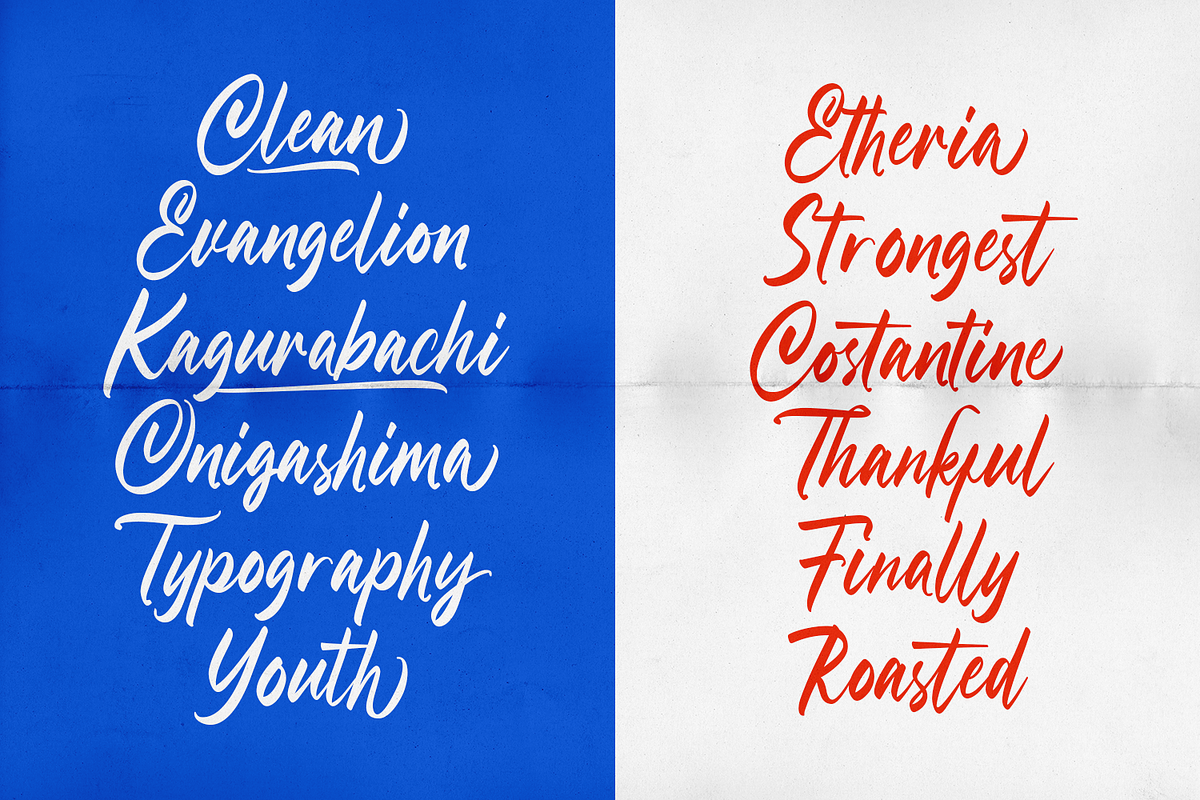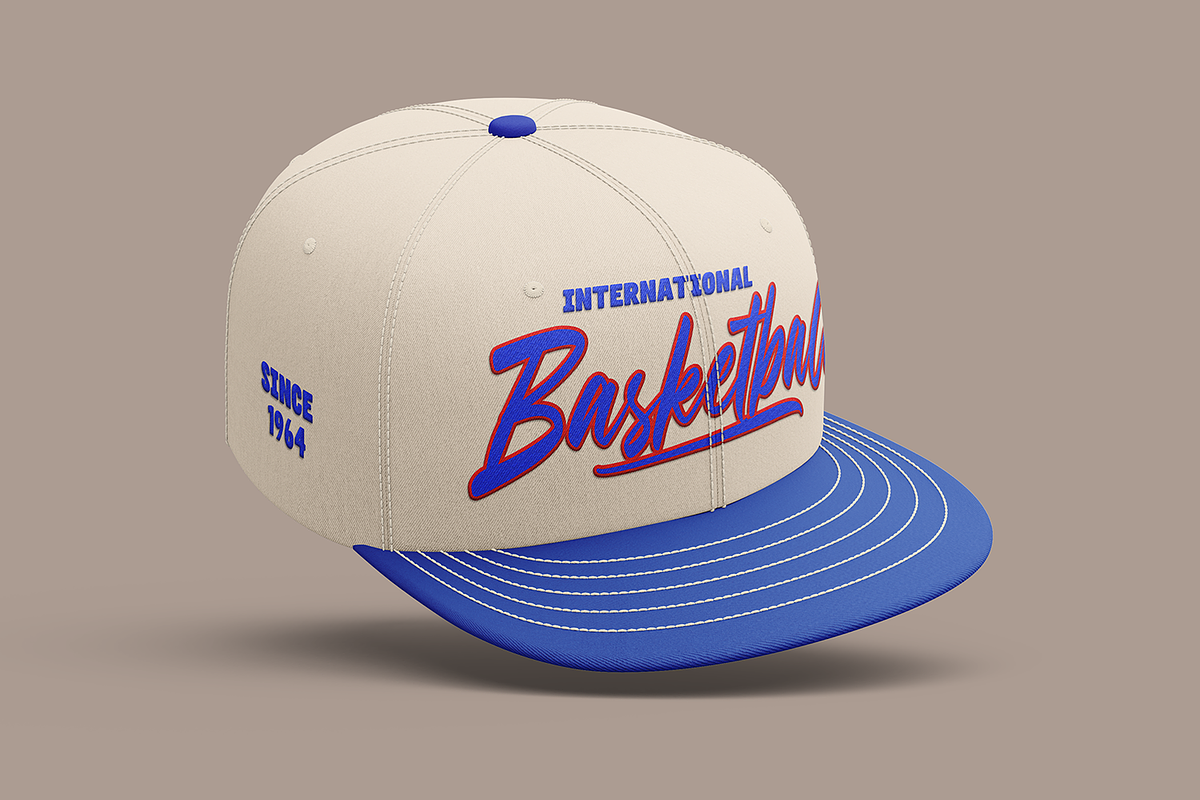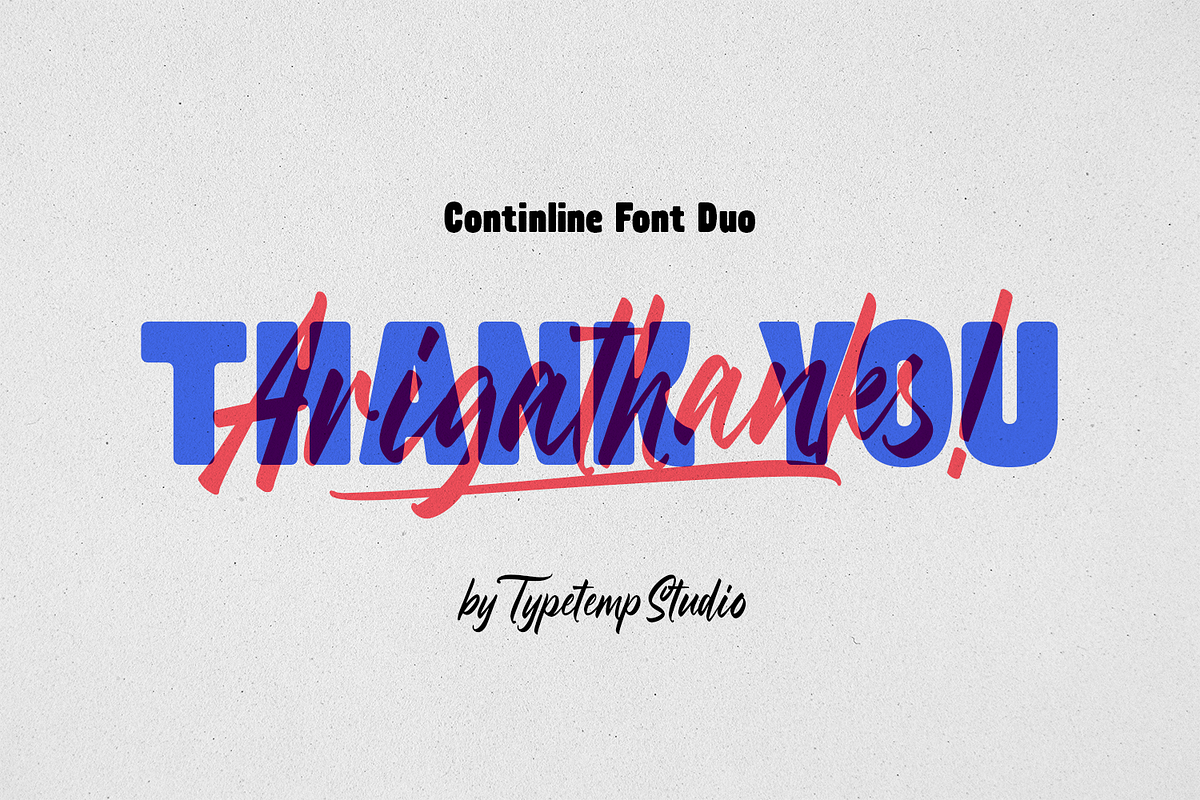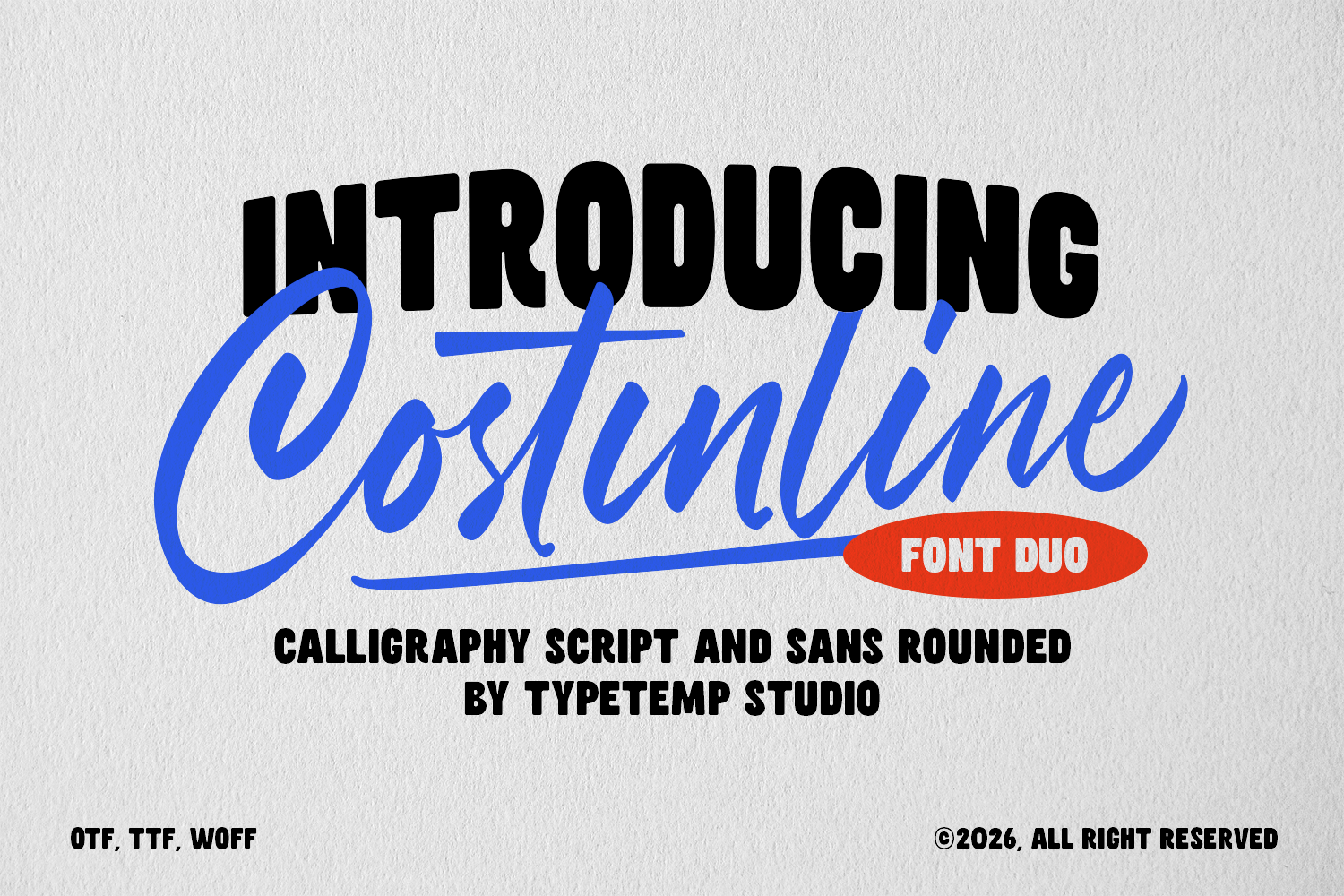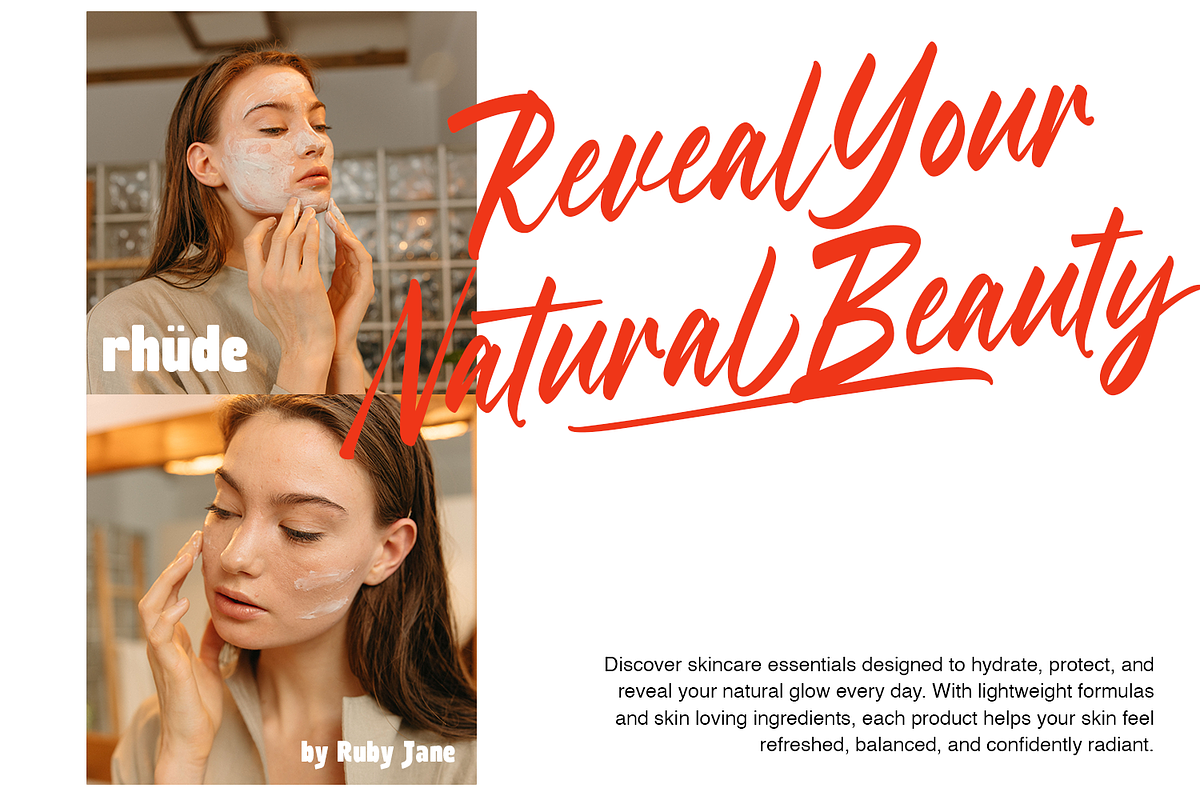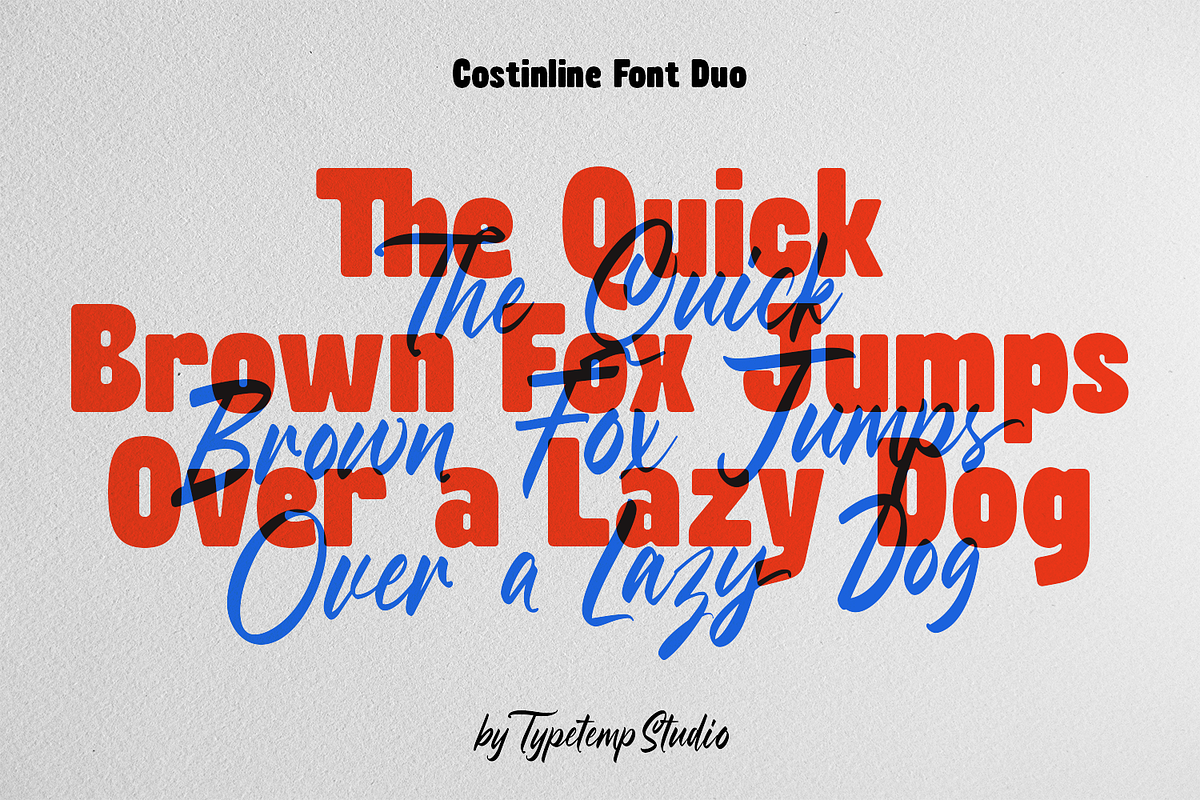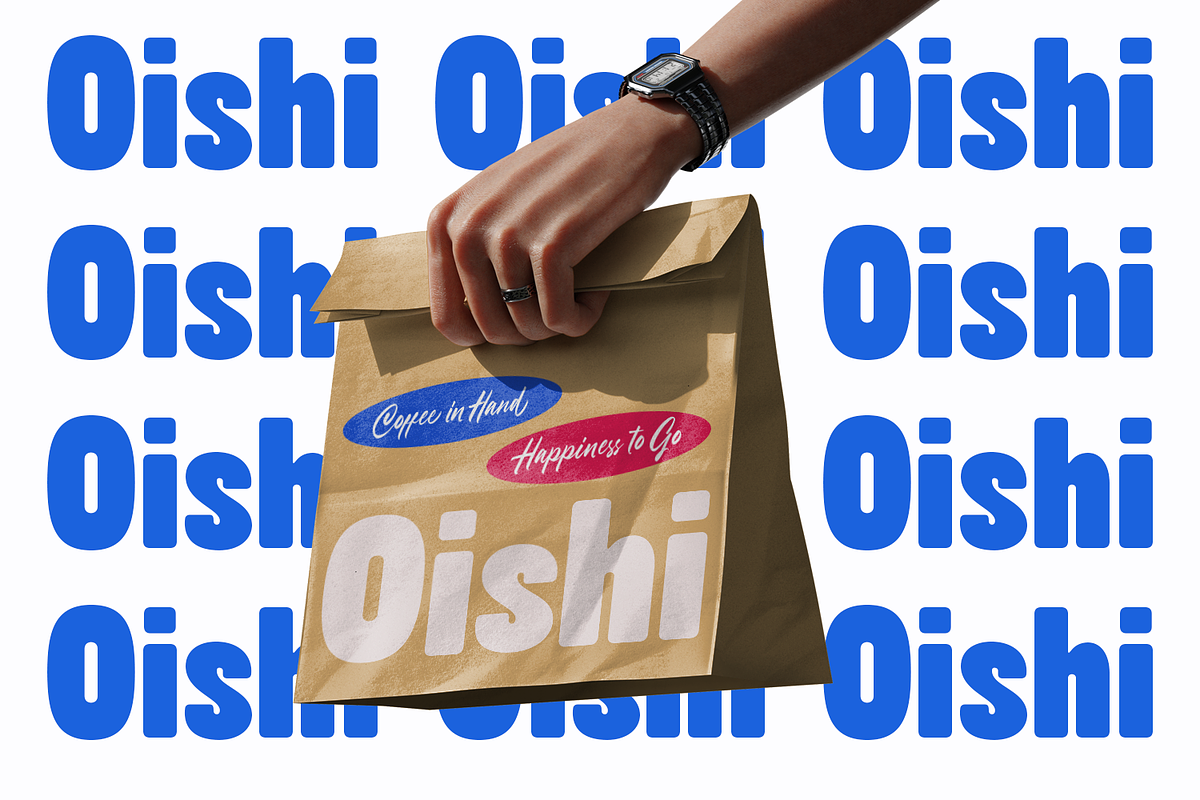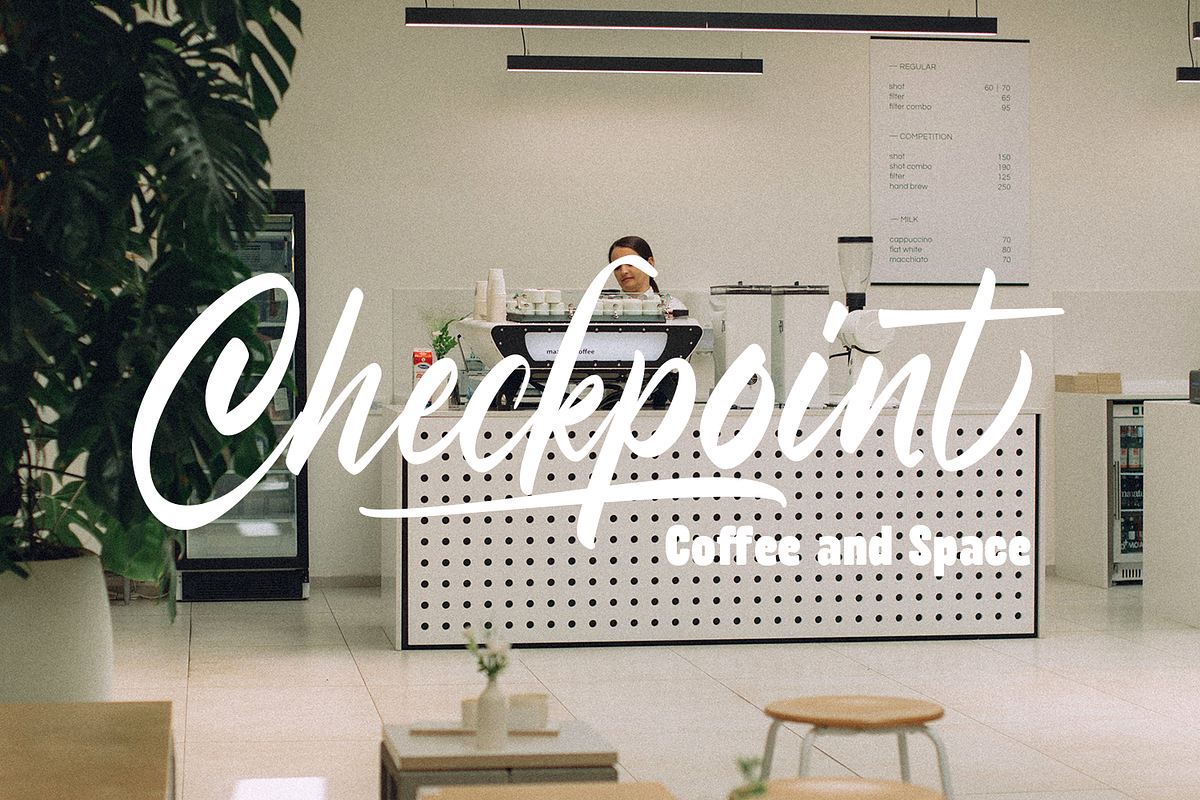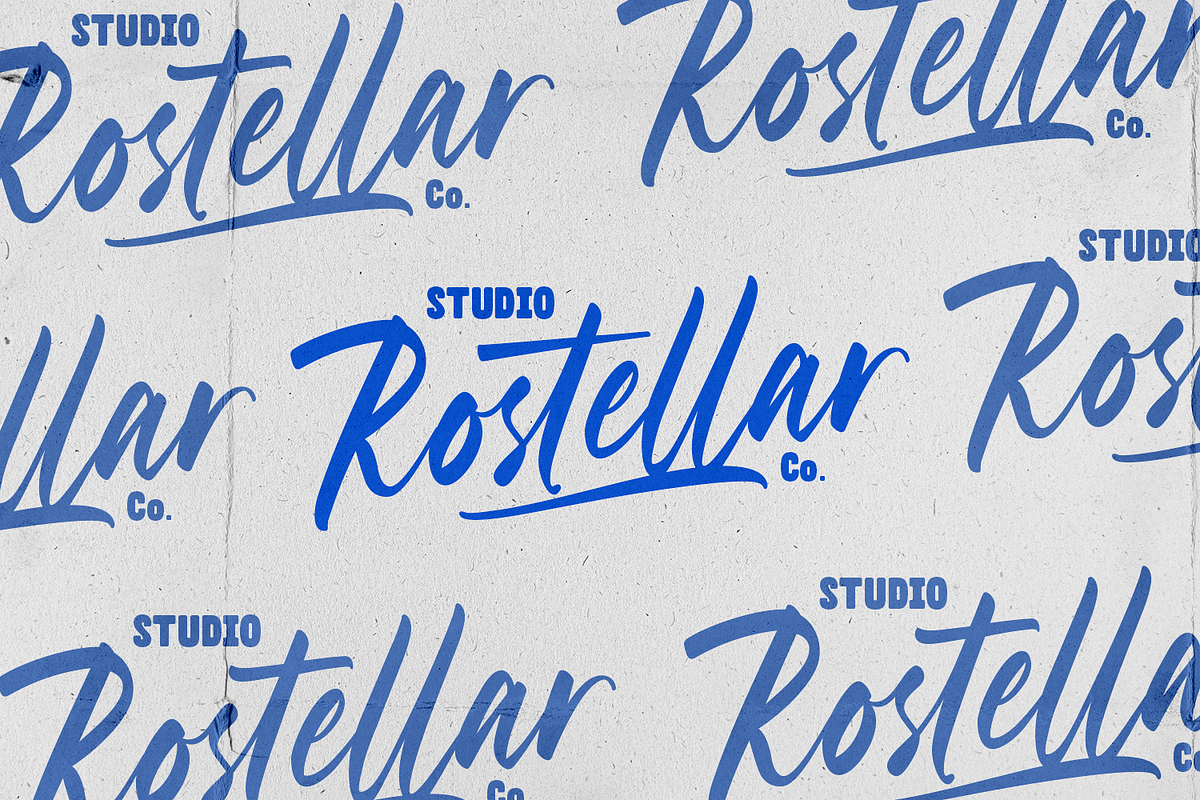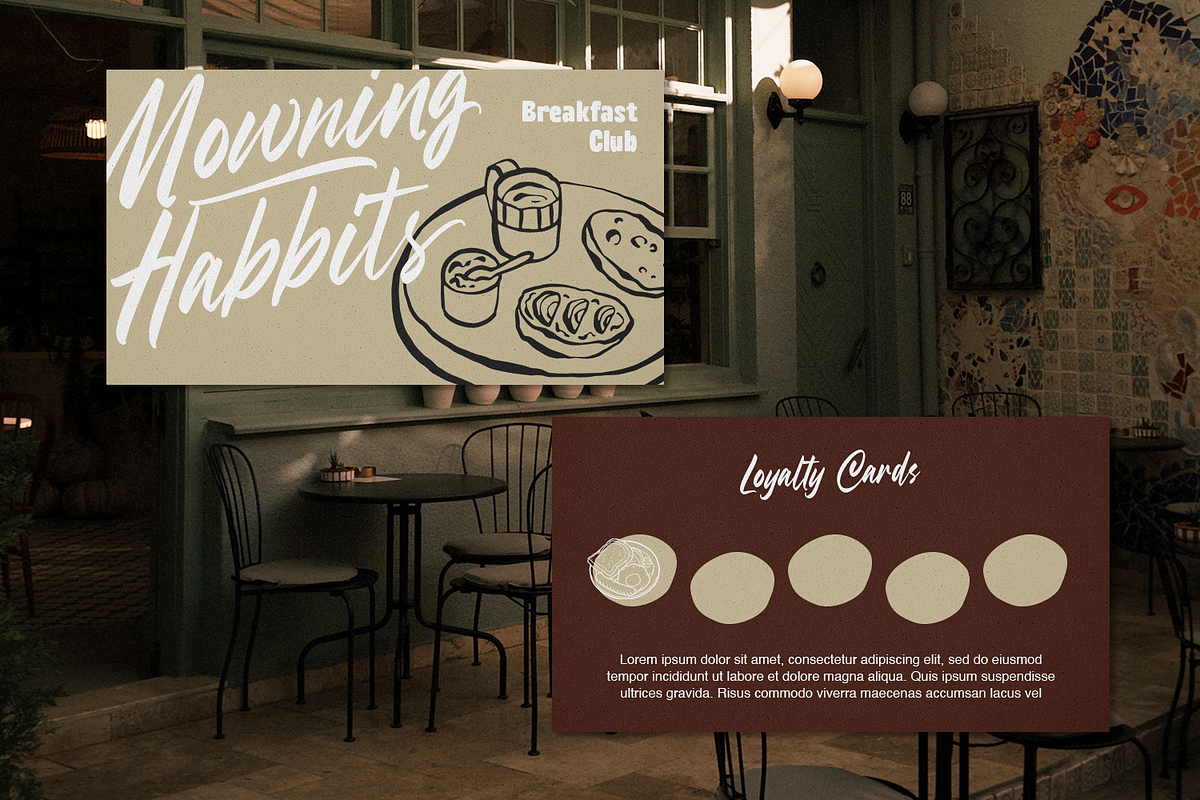
Costinline Display - Font Duo
Costinline is a versatile font duo presented by Typetemp Studio, combining a sweeping calligraphy script with a bold, chunky sans rounded display font. The expressive cursive script brings expressive movement and a hand-crafted touch, while the solid rounded sans provides a strong, high-impact counterweight. Perfectly paired to work together, this duo simplifies typographic styling for dynamic, modern layouts.
Perfect Font Duo pairing: Calligraphy Script + Sans Rounded.
Smooth cursive flow with bold, friendly rounded letterforms.
Versatile typographic hierarchy for headline and accent combinations.
Detailed Usage
Logos & Branding: An excellent choice for modern cafes, artisanal bakeries, creative agencies, beauty brands, and lifestyle studios looking for a cohesive, paired brand identity.
Packaging Design: Perfectly upgrades specialty coffee bags, organic cosmetics, craft beverage labels, gourmet snack packaging, and boutique goods.
Editorial Layouts: A standout option for magazine feature titles, event promotional layouts, book covers, and creative menu headings.
Digital Content: Elevates website banners, engaging social media graphics, quote compositions, and dynamic video title overlays.